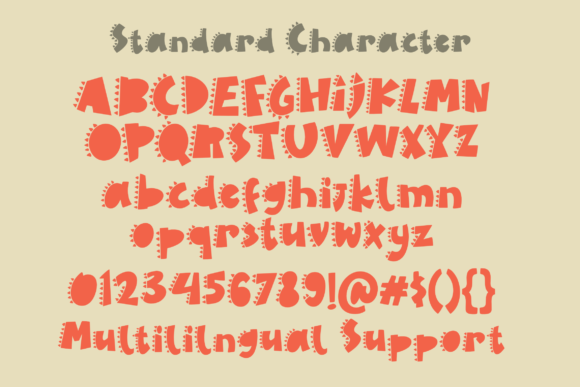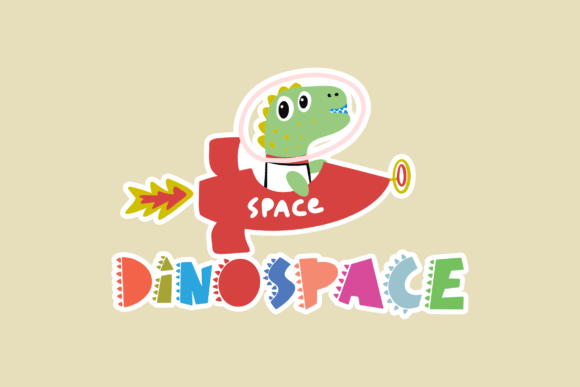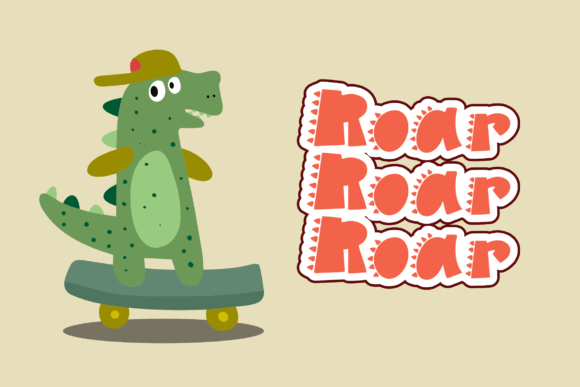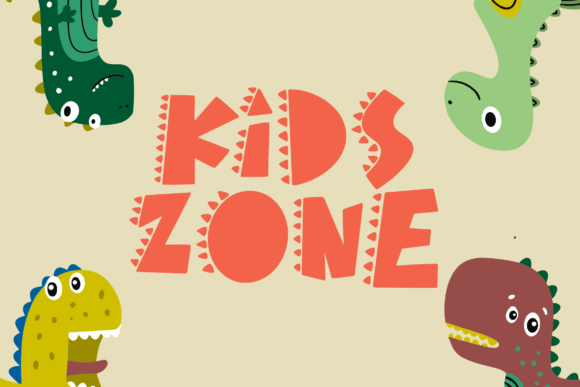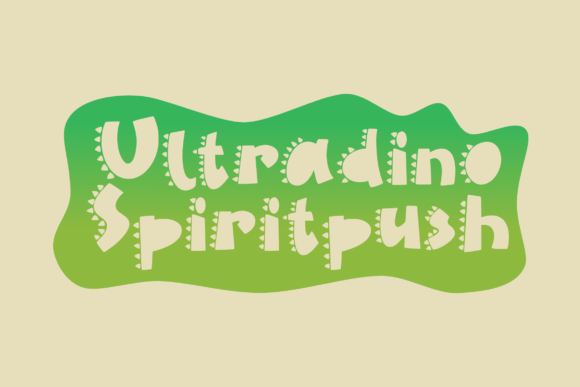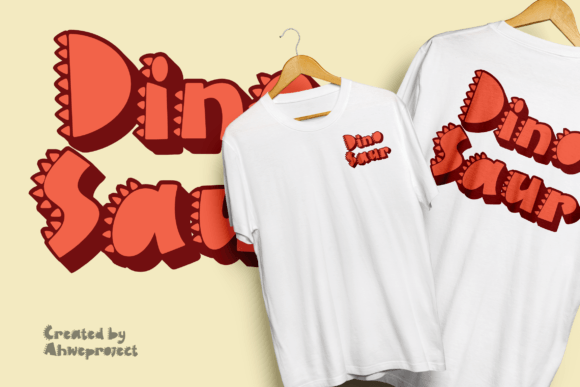
Dino Roar Font: Unleash the Prehistoric Power in Your Designs
Are you a designer or crafter looking for a font that can add a touch of prehistoric excitement to your projects? Look no further than the Dino Roar Font! Inspired by the mighty dinosaurs, this display font is perfect for creating dinosaur-themed designs that roar with personality.
What is Dino Roar Font?
Dino Roar Font is a bold and eye-catching display font that captures the raw energy of the ancient giants that once ruled the earth. With its rugged and adventurous feel, this font is ideal for designs that require a prehistoric punch. Whether you’re working on a dinosaur-themed project, creating invitations, decorations, social media graphics, or stickers, Dino Roar Font is the perfect choice.
Key Features of Dino Roar Font
- Display Font: Dino Roar Font is a display font designed to make a statement. Its bold and chunky letters are perfect for headlines, titles, and short texts.
- Dinosaur-Inspired: The font’s design is inspired by the mighty dinosaurs, giving it a unique and adventurous feel.
- Versatile: Dino Roar Font is suitable for a wide range of design projects, from invitations and decorations to social media graphics and stickers.
- Easy to Read: Despite its bold and chunky design, Dino Roar Font is easy to read, making it perfect for short texts and titles.
Use Cases for Dino Roar Font
Dino Roar Font is a versatile font that can be used in a variety of design projects. Here are some use cases to get you started:
- Dinosaur-Themed Designs: Create roaring dinosaur-themed designs, such as posters, flyers, and brochures, that are sure to delight kids and adults alike.
- Invitations: Use Dino Roar Font to create bold and eye-catching invitations for birthday parties, baby showers, and other celebrations.
- Decorations: Add a prehistoric touch to your decorations, such as wall art, garlands, and banners, with Dino Roar Font.
- Social Media Graphics: Create engaging social media graphics, such as Facebook posts, Instagram stories, and Twitter headers, that showcase your brand’s personality.
- Stickers: Design fun and playful stickers that feature Dino Roar Font and are perfect for laptops, water bottles, and other surfaces.
Tips for Using Dino Roar Font
Dino Roar Font is a powerful and versatile font that’s perfect for designers and crafters looking to add a touch of prehistoric excitement to their projects. With its bold and chunky design, this font is sure to make a statement in any design. Whether you’re working on a dinosaur-themed project or just want to add some personality to your designs, Dino Roar Font is the perfect choice. So why wait? Unleash the prehistoric power of Dino Roar Font in your designs today!